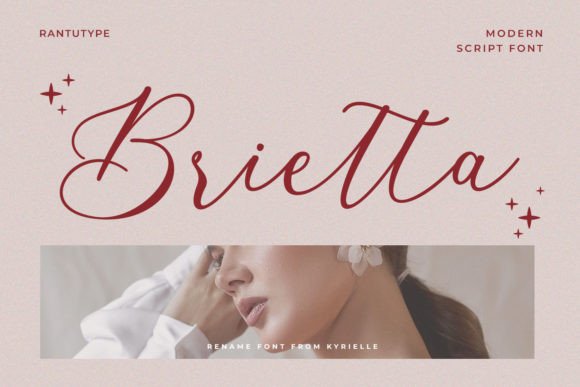
Step into a world of exquisite elegance with Brietta Font, a script masterpiece crafted by RantauType. This delicate, flowing font captivates hearts with its enchanting handwritten style, exuding a natural grace that adds a touch of sophistication to any design.
Immerse yourself in the beauty of Brietta Font's well-balanced characters, each stroke meticulously crafted to create a seamless harmony of form and flow. Its versatile nature effortlessly complements a diverse array of projects, ranging from heartfelt letters and elegant invitations to eye-catching logos and whimsical branding.
Brietta Font's PUA encoding unlocks a world of creative possibilities, granting you effortless access to a treasure trove of glyphs and swashes. Unleash your imagination and let your designs flourish with the limitless expressiveness of this extraordinary font.
With Brietta Font as your creative companion, transform your digital creations into masterpieces that resonate with your audience. Its captivating presence elevates websites, social media posts, and marketing materials to new heights of visual appeal, leaving an unforgettable impression that sets you apart from the ordinary.
Embrace the allure of Brietta Font and watch as your designs metamorphose into works of art. Its captivating charm will draw eyes and captivate hearts, leaving a lasting�记on your audience. Brietta Font is more than just a font; it's an investment in your creative journey, empowering you to craft designs that captivate, inspire, and leave a lasting legacy.